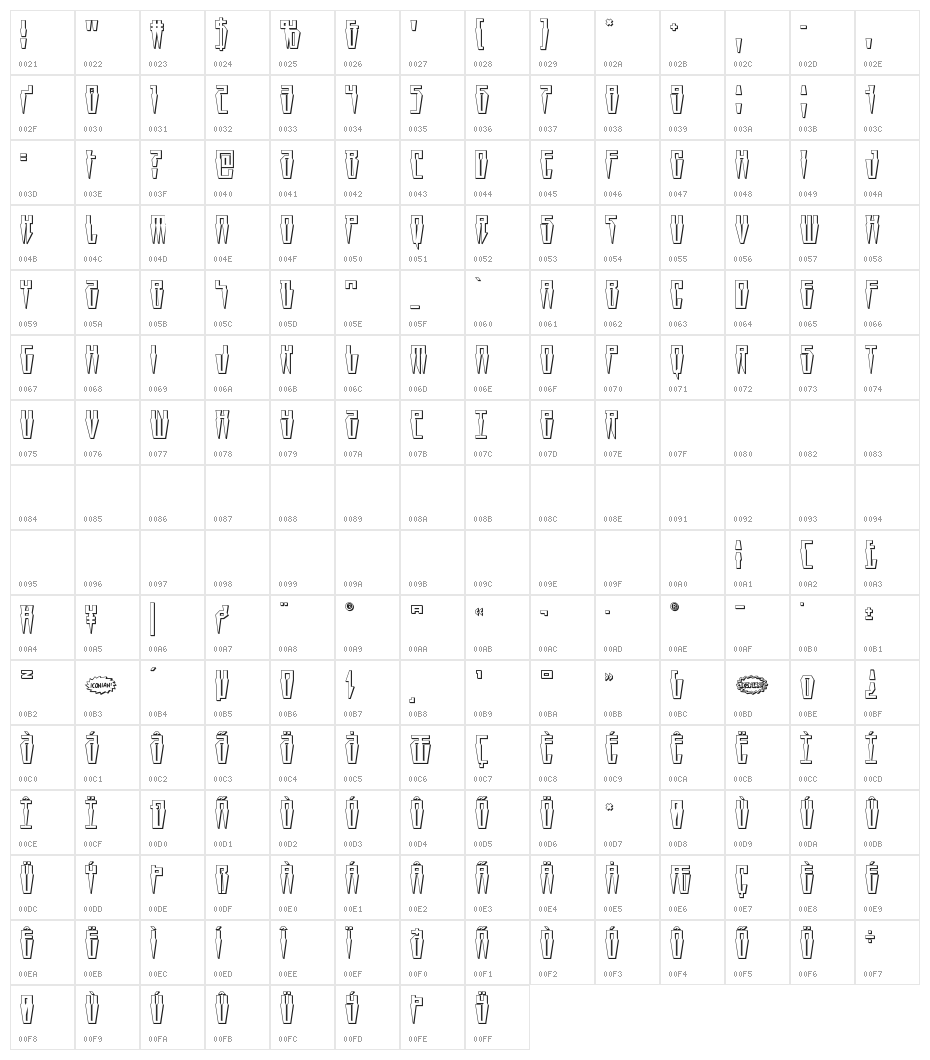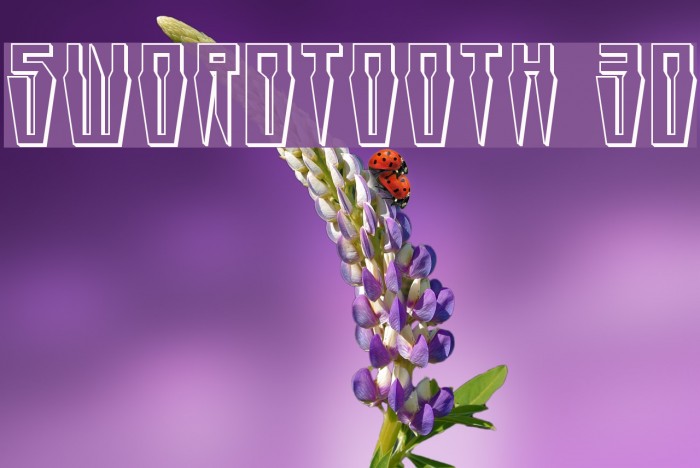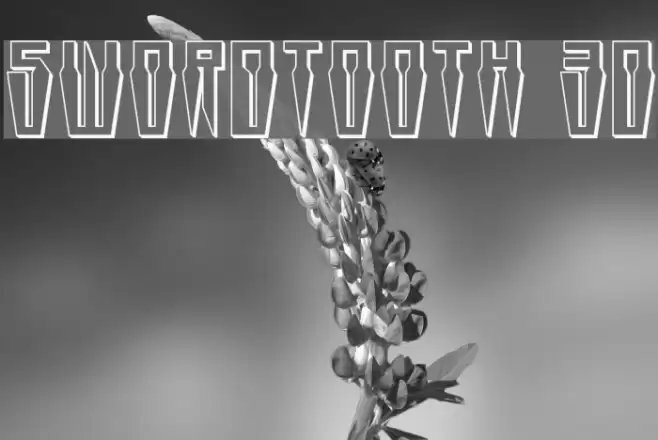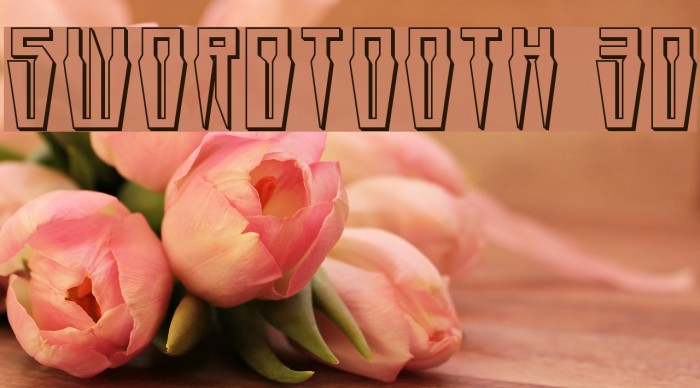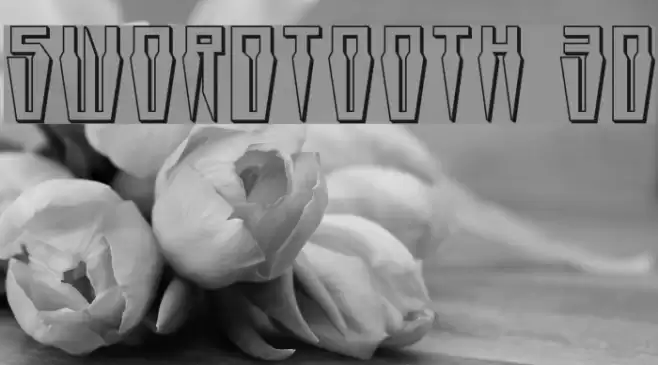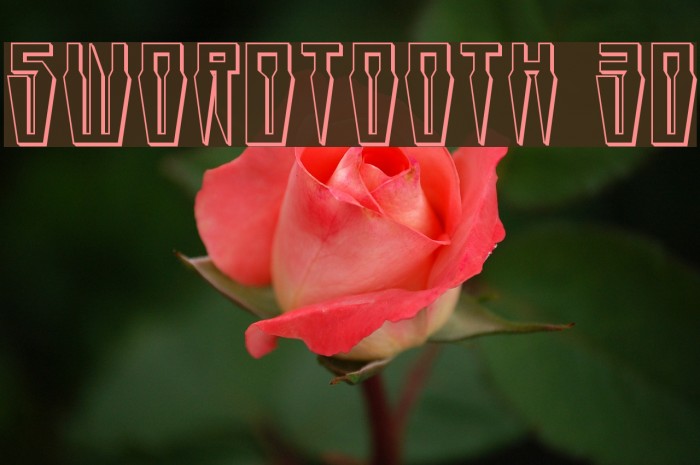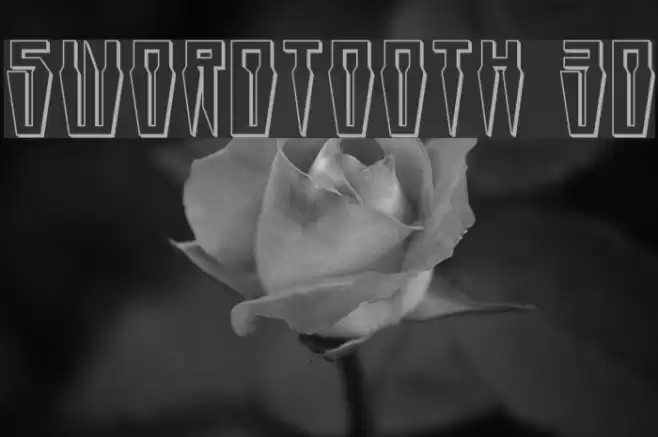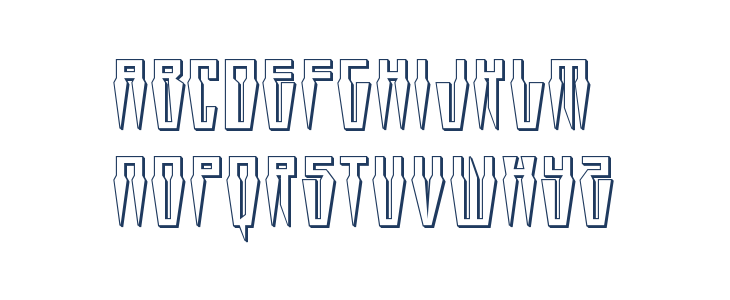
Swordtooth 3D Font
Swordtooth 3D Description
This font showcases a bold and striking 3D effect, characterized by sharp, angular edges and a geometric design. The letters are outlined, giving them a hollow appearance that enhances the three-dimensional illusion. The uppercase and lowercase letters maintain a consistent style, with each character featuring pointed tips and a distinct, futuristic aesthetic. The numbers and special characters follow the same design principles, ensuring uniformity across the font. Its unique style makes it stand out, ideal for projects that require a modern and edgy look.
| Proposed Projects | Ideal for video game titles, sci-fi movie posters, tech branding, and modern graphic design projects. |